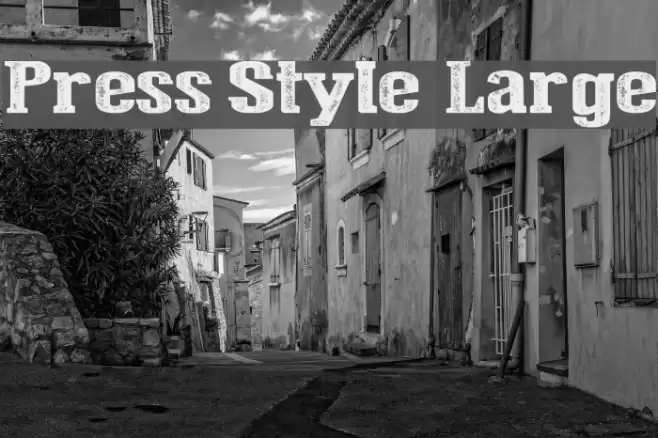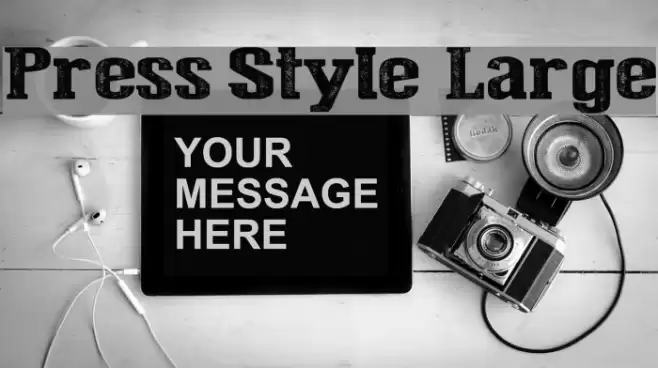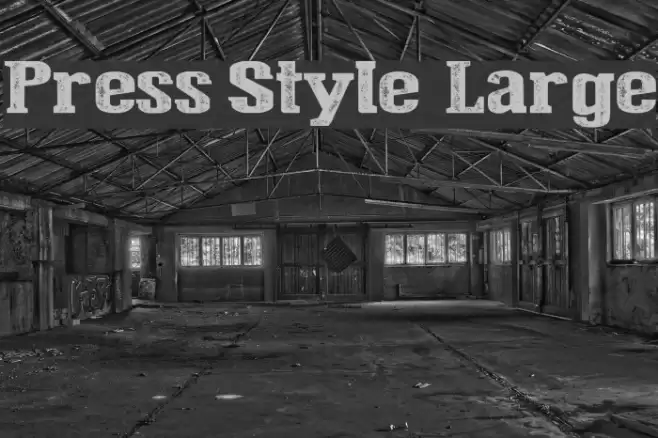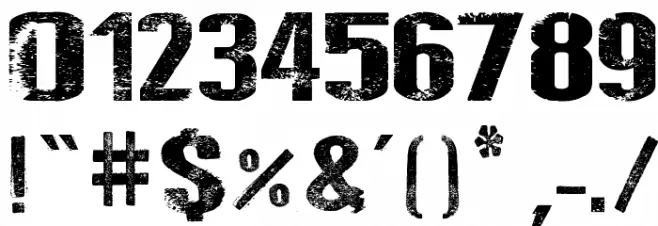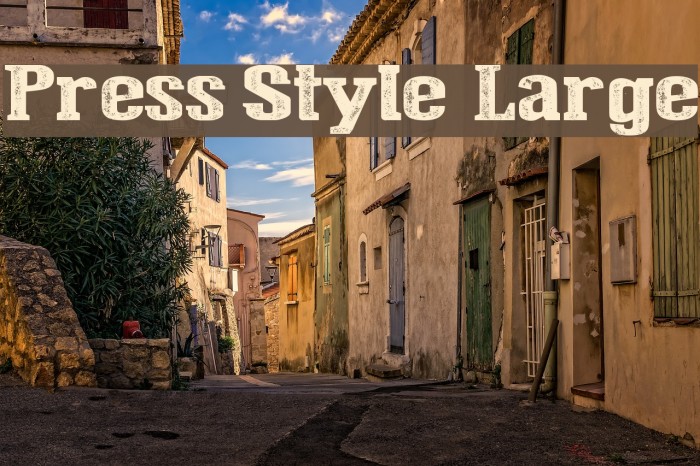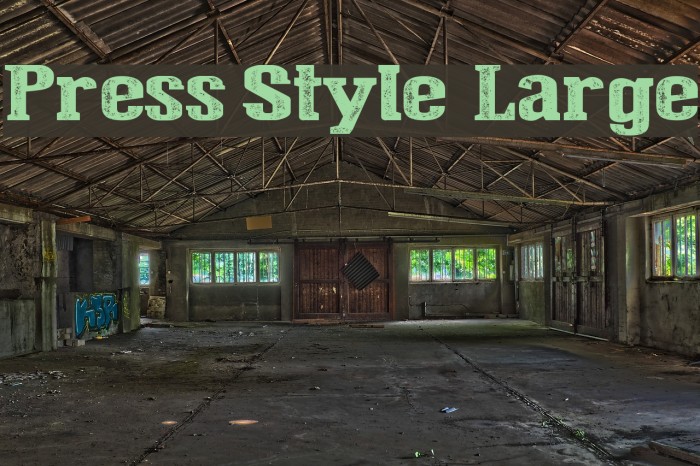
Press Style Large Font
Press Style Large Description
This font exhibits a bold, distressed style reminiscent of vintage printing presses. The characters are robust and heavily weighted, with a textured appearance that suggests wear and age. The uppercase and lowercase letters maintain a consistent width, contributing to a uniform look across the typeface. The numbers and special characters share the same distressed aesthetic, adding to the overall cohesive design. This font's unique style is ideal for projects seeking a retro or industrial feel, offering a strong visual impact with its bold and textured strokes.
A bold, distressed font with a vintage, industrial style from Distorted Eroded fonts.
- Proposed Projects: Ideal for posters, logos, branding, and any design requiring a vintage or industrial aesthetic.
- Overall Style: Vintage